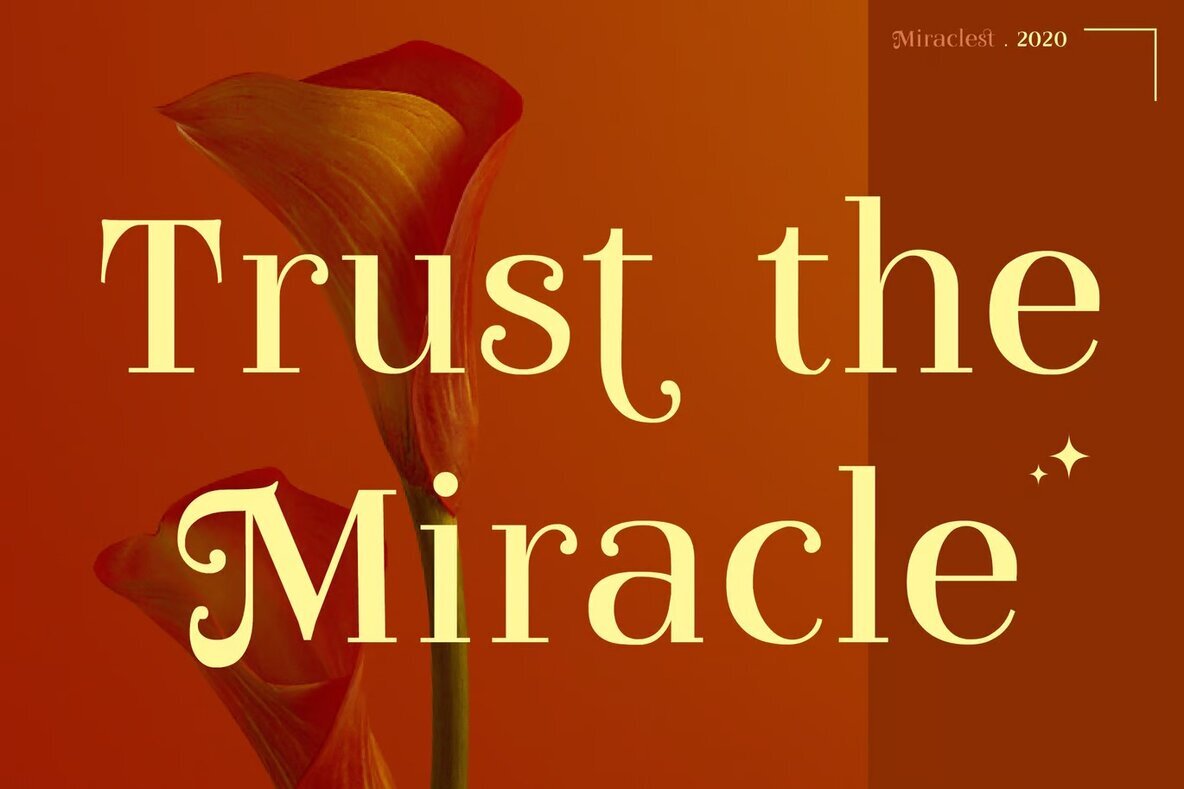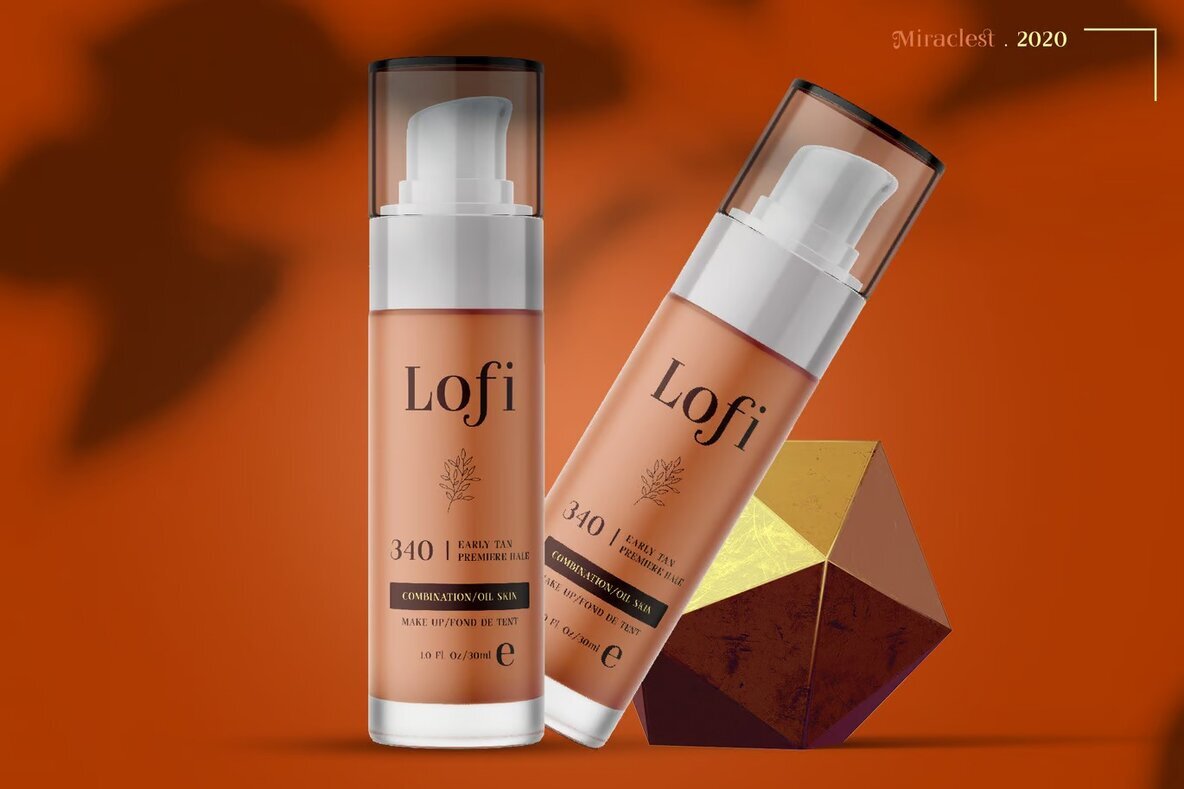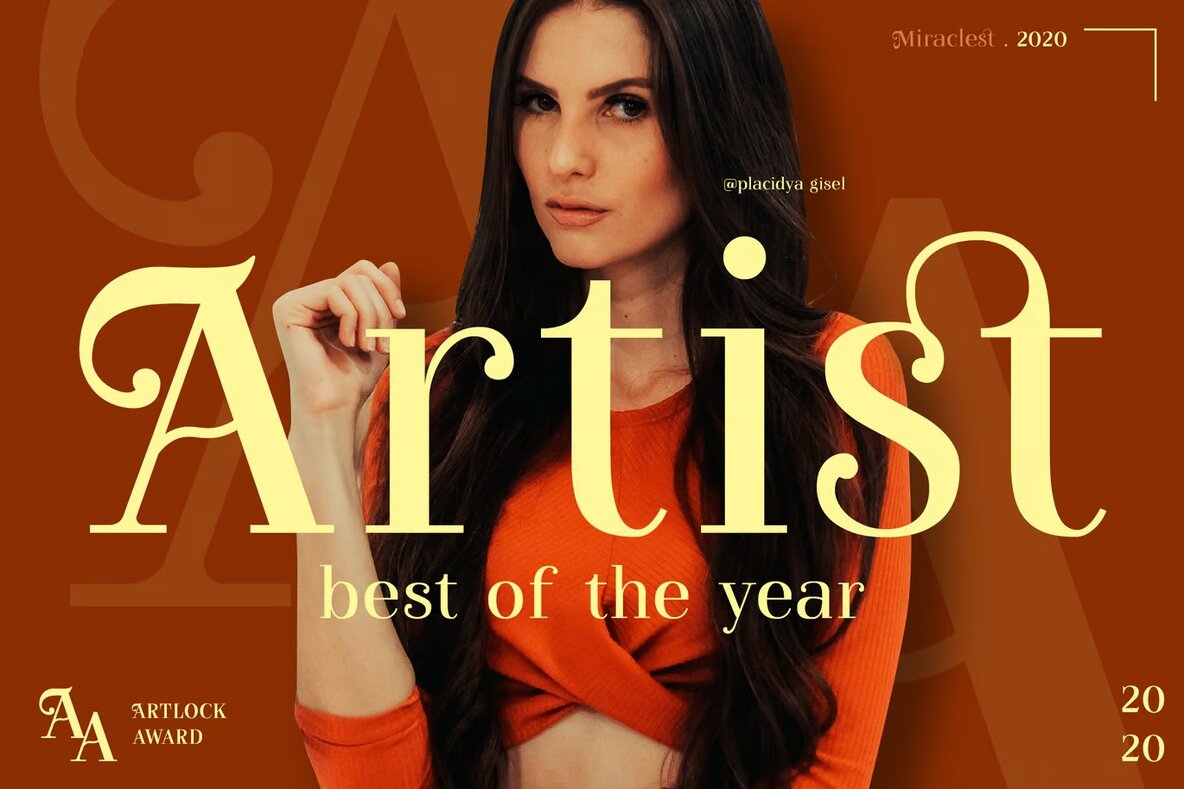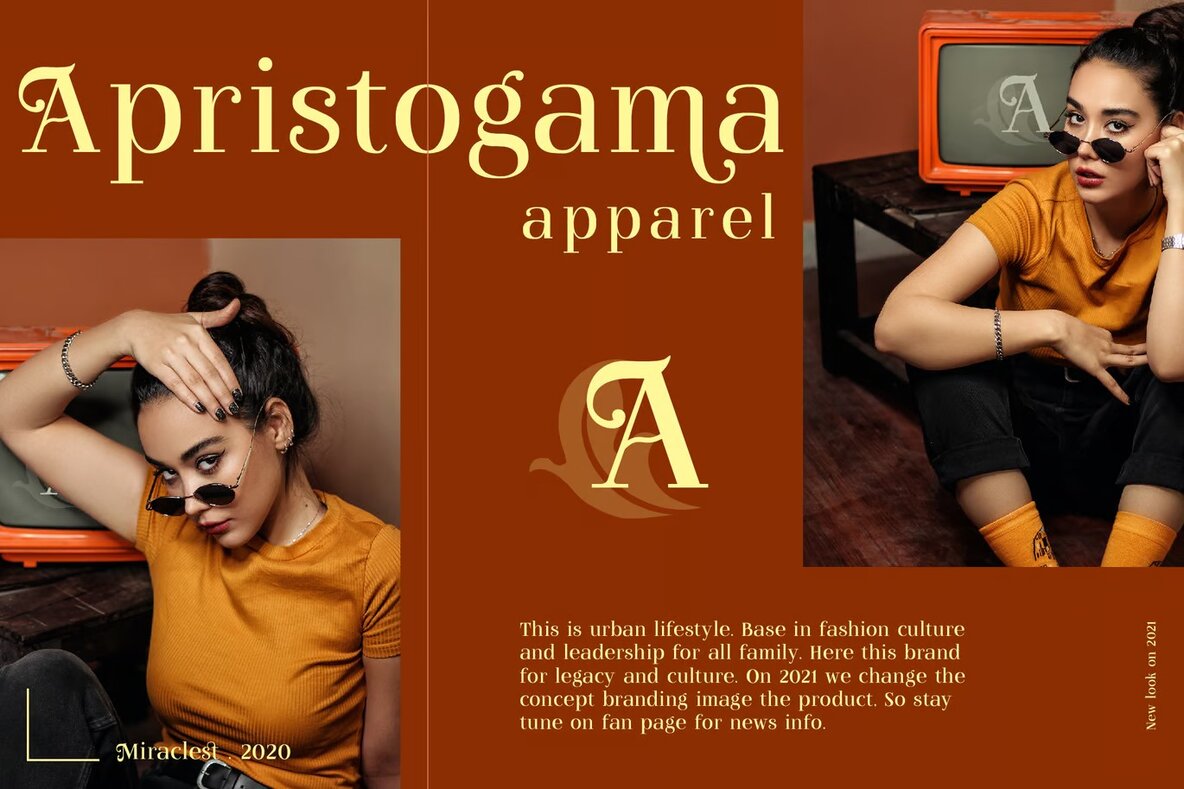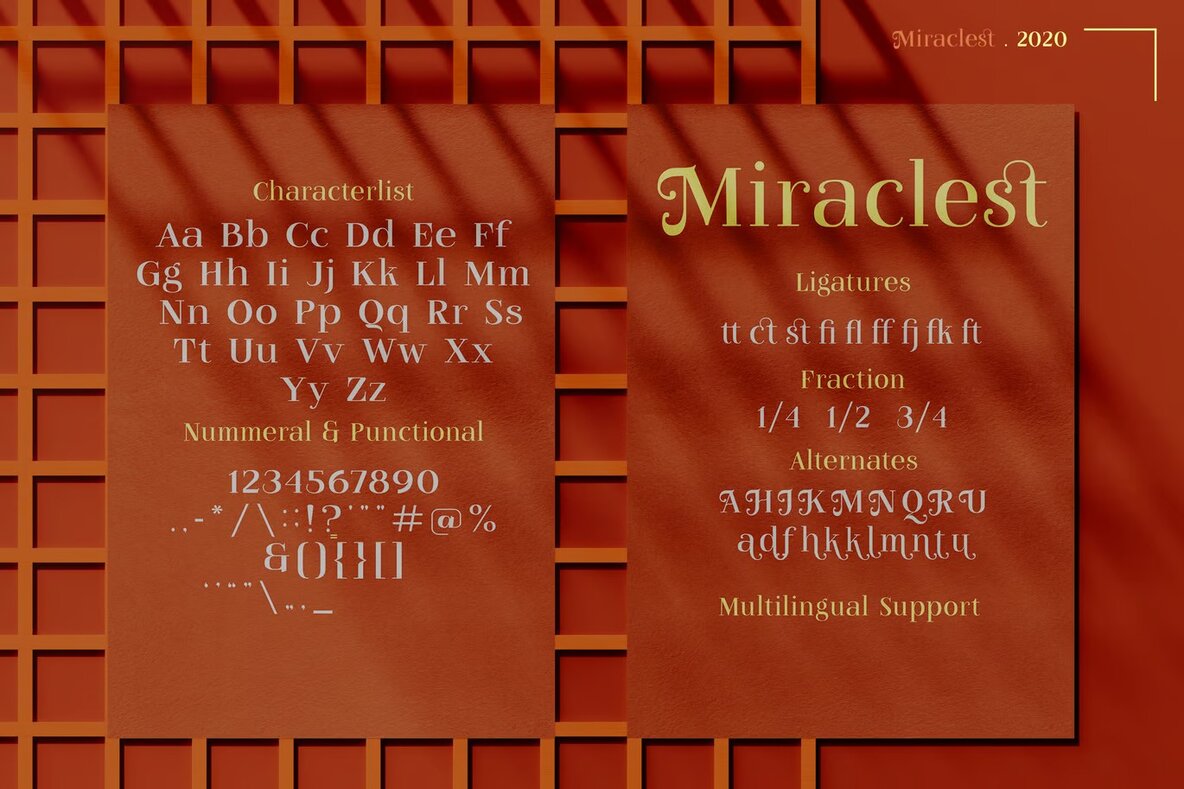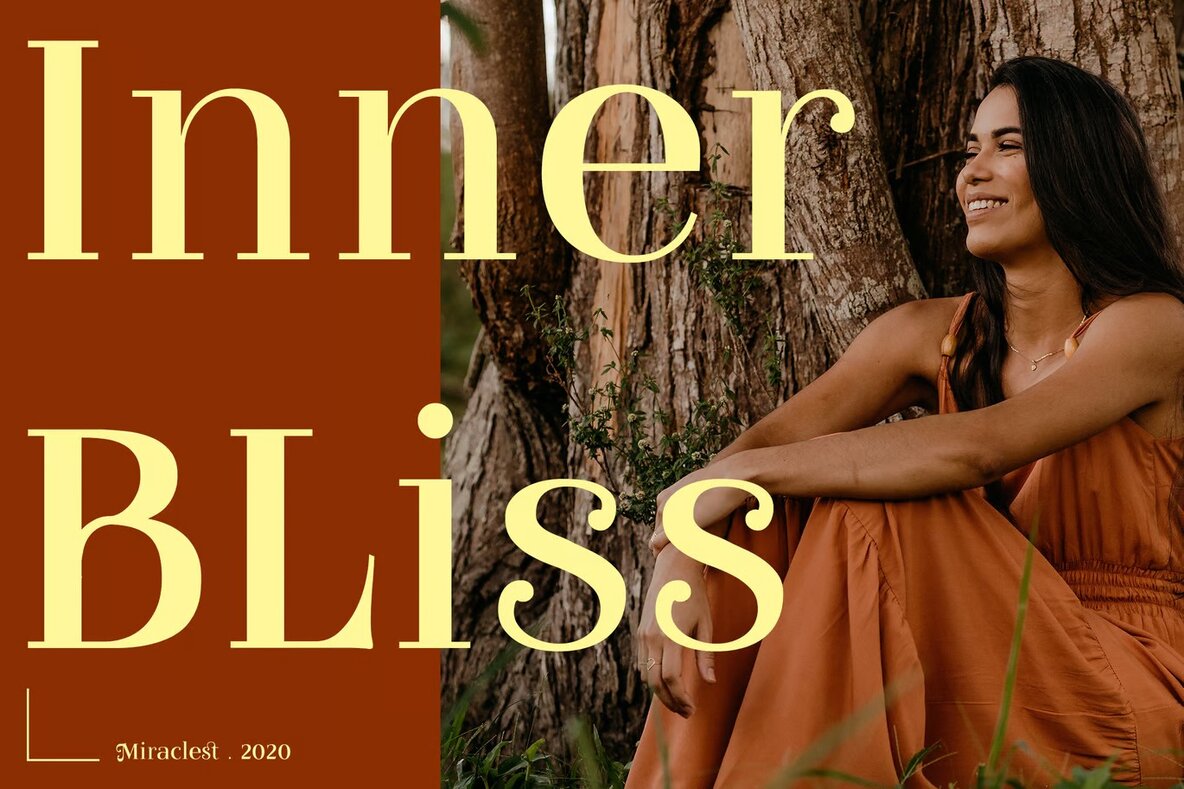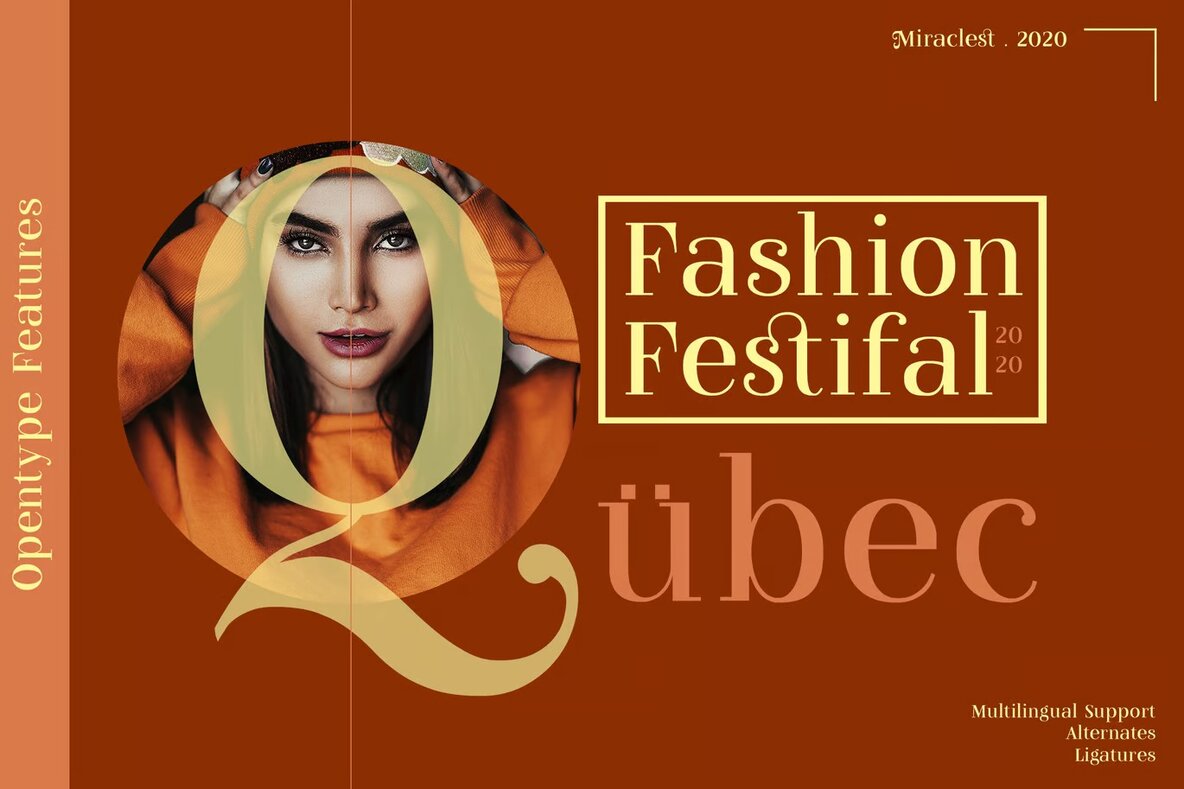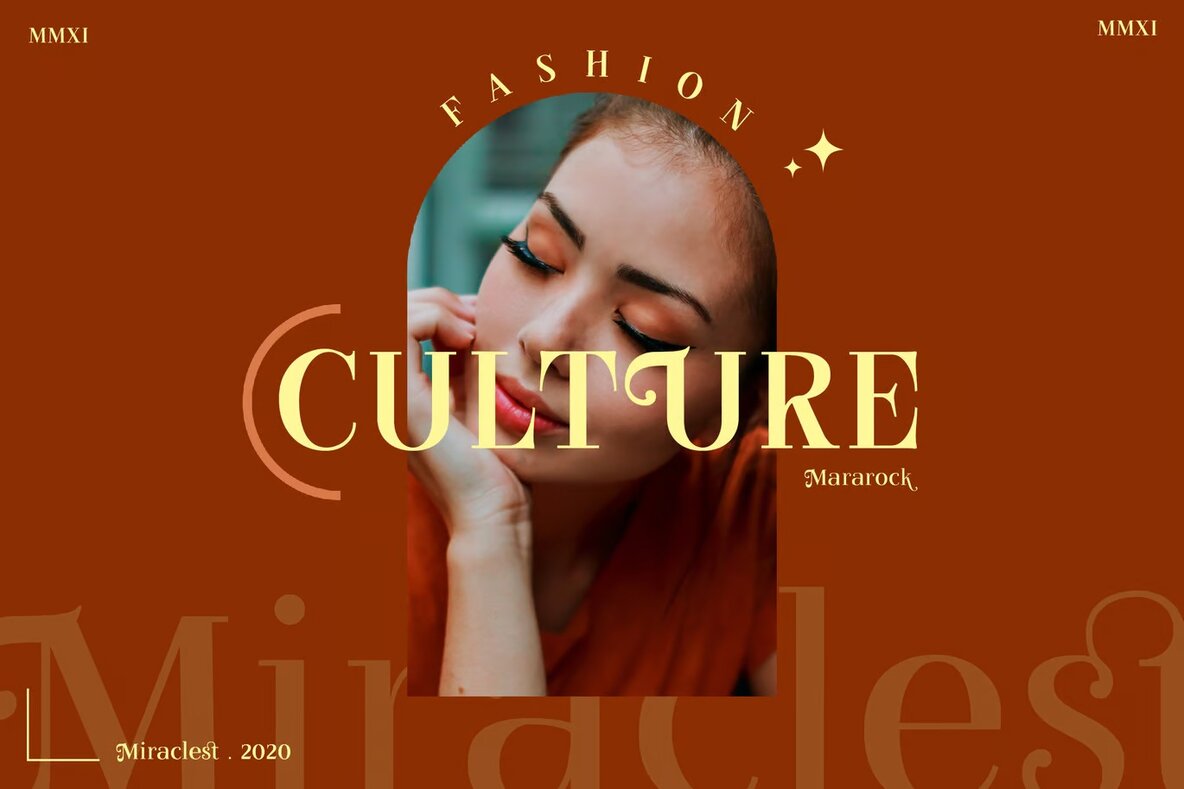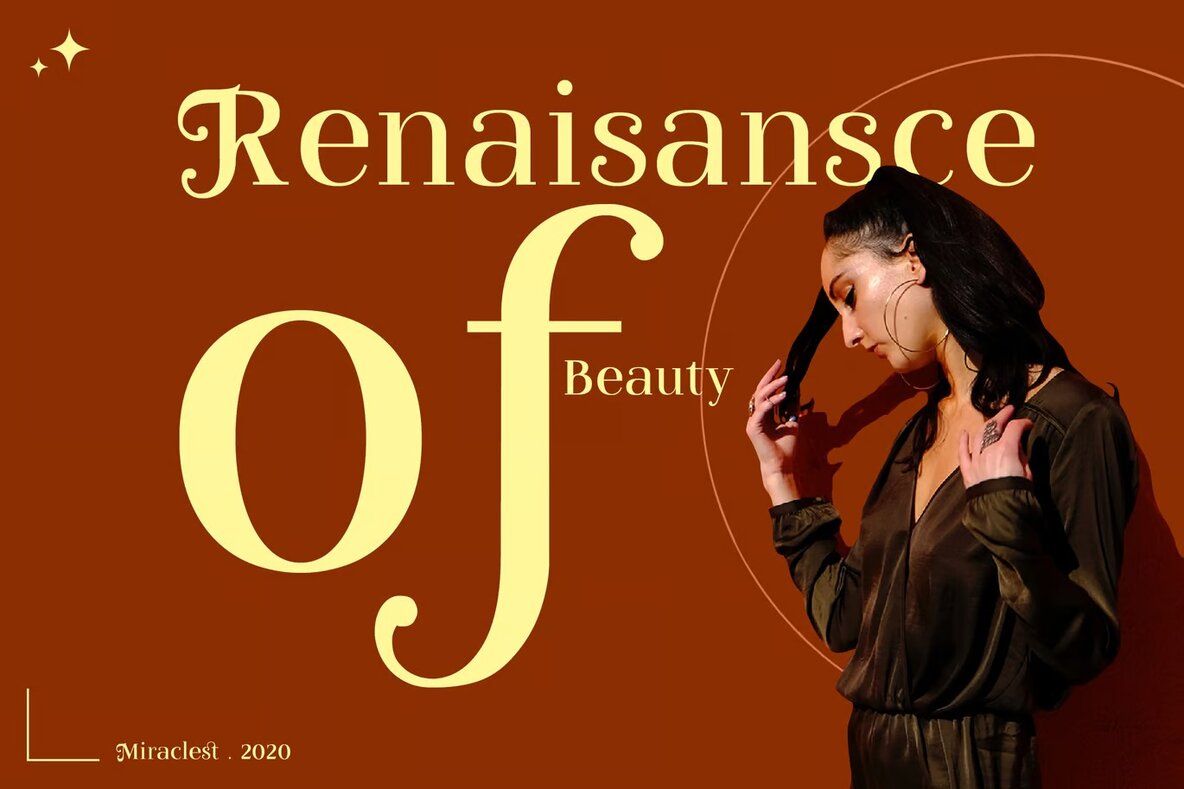
Miraclest Font
Miraclest is an elegant and luxurious serif font characterized by its beautiful fancy style. This typeface is enhanced with ligatures and alternates, allowing for versatility and creativity in your designs. Miraclest is ideal for crafting distinctive logotypes and sophisticated typography projects.
Perfect for a wide range of applications, Miraclest shines in luxury logos and branding. It's also suited for classy editorial layouts, fashion promotions, and boutique branding. Its refined appearance is a great fit for beauty salons, modern advertising, and art quotes. Whether you're working on magazine spreads, elegant invitations, or book covers, Miraclest adds a touch of glamour and style. Embrace its versatility for all special events and high-end projects in your design repertoire.